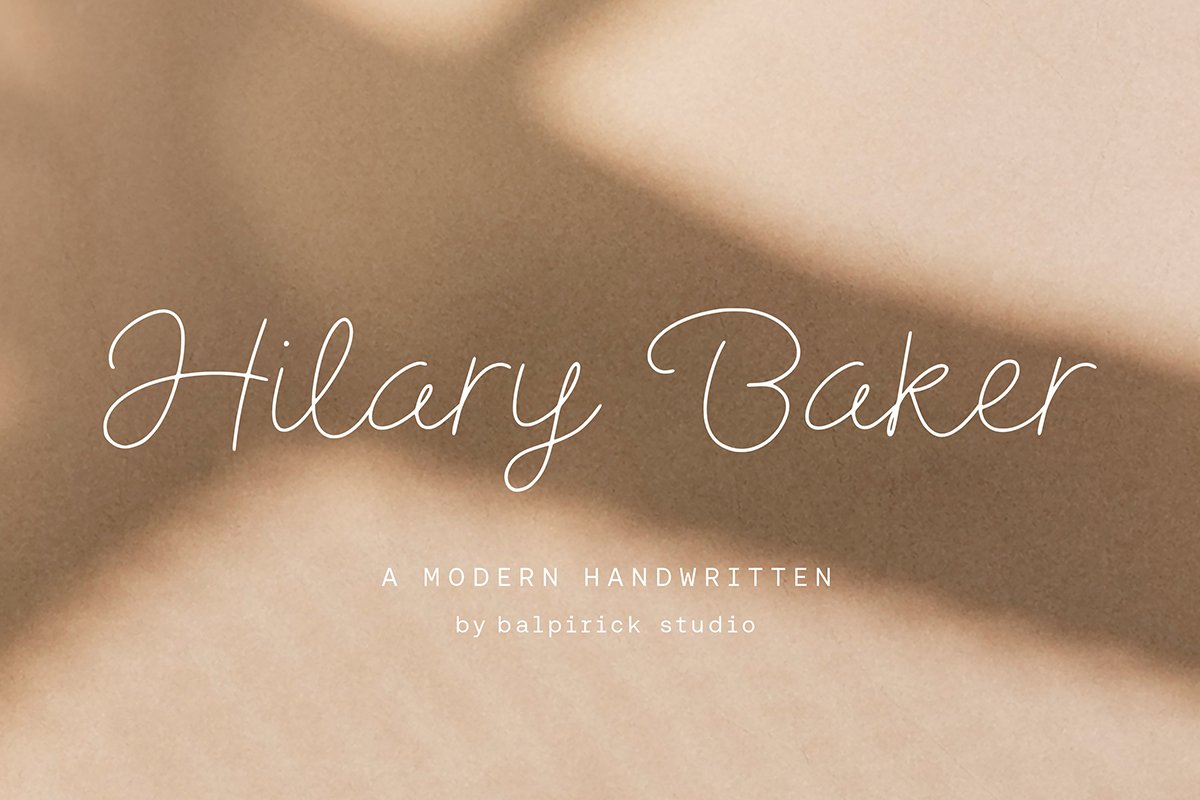
Hilary Baker – Script Font is a Modern Handwritten that’s clean, elegant and perfect for a range of design projects! With its smooth, effortless lines and understated sophistication, this font is the perfect choice for those who want a modern look that’s still timeless in its appeal.